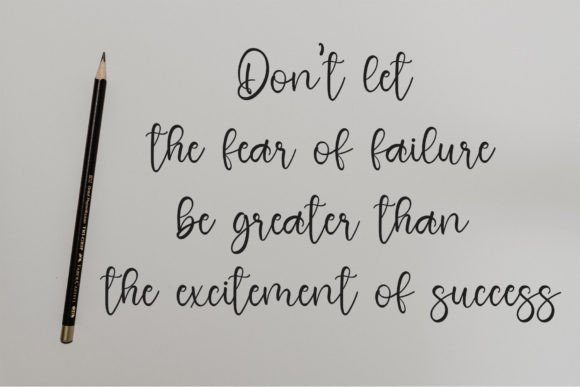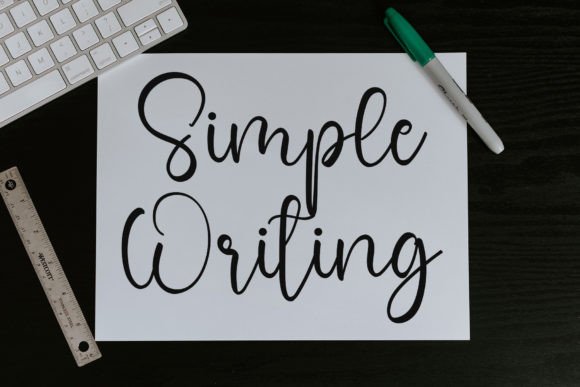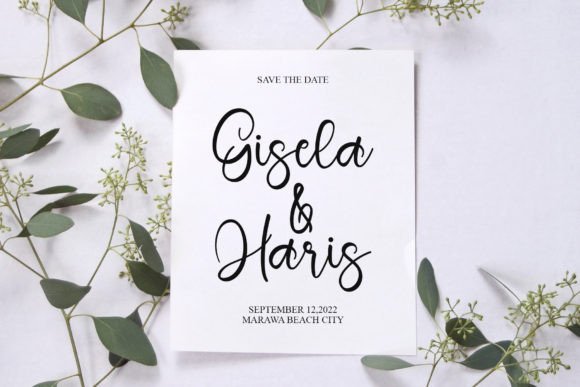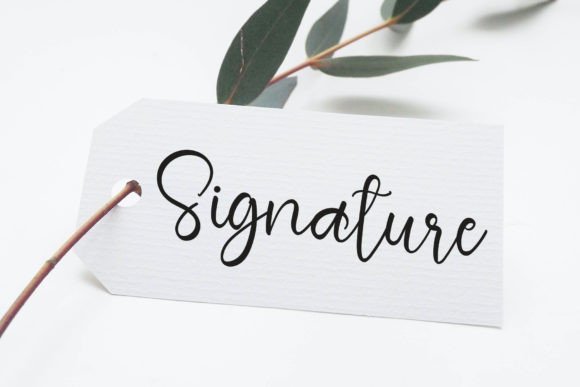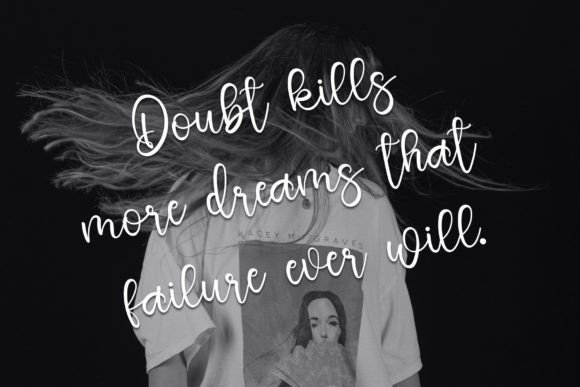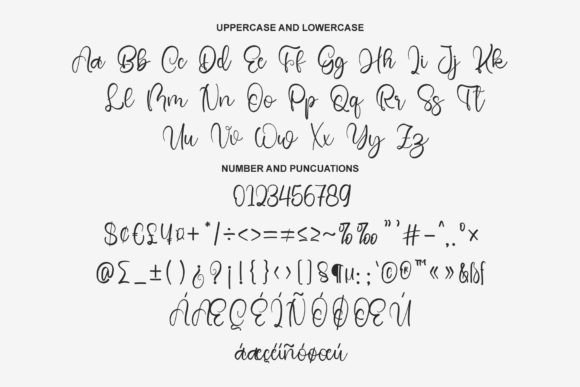
Introduction to Shadow Font Font
Fonts play a crucial role in design, and the Shadow Font font is a typeface that brings both character and versatility to any project. Whether you’re working on a branding project, a website, or a print design, the Shadow Font font offers a unique style that can elevate your work.
Shadow is a thin and beautiful handwritten font.
Its distinct and well rounded letters make this font a masterpiece Fall in love with its incredibly versatile style and use it to create spectacular designs.
The Shadow Font font is more than just a typeface – it’s a design tool that helps you communicate your message with style and clarity. Its unique character set and versatile design make it suitable for a wide range of applications, from elegant invitations to bold headlines.
With its carefully crafted letterforms and balanced proportions, the Shadow Font font ensures readability and visual appeal across all mediums.
The Shadow Font font stands out with its unique design, exceptional readability, and versatility across various design applications.